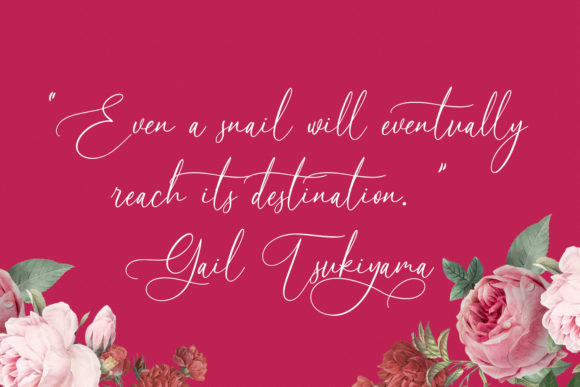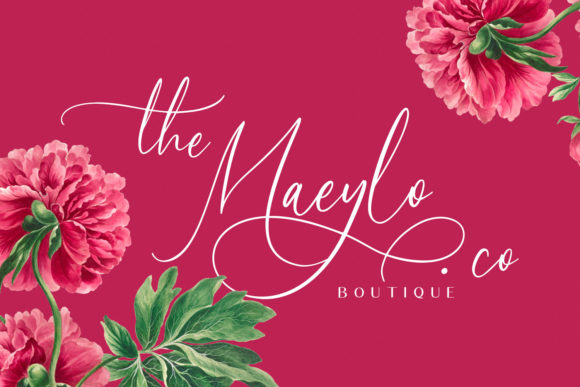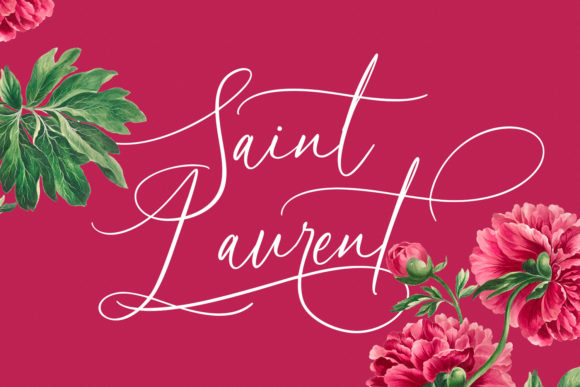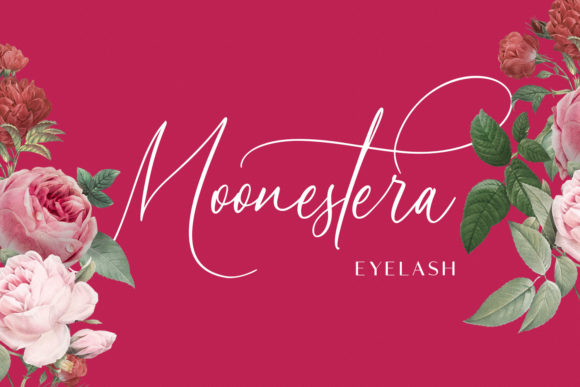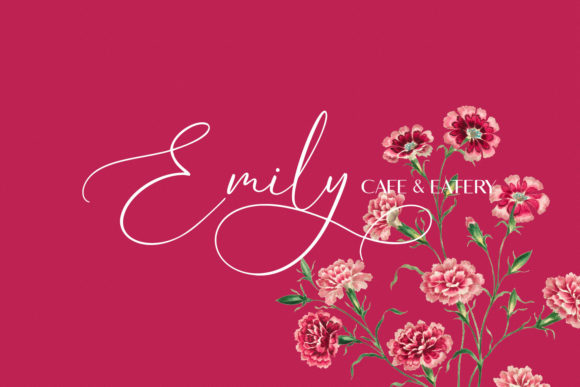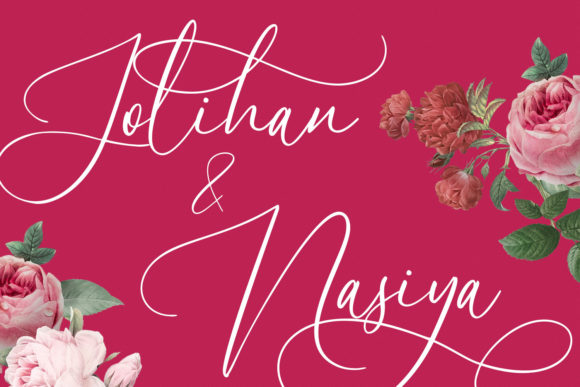
Introduction to Holystails Font
Have you ever been stuck on a creative project, staring at a blank canvas, searching for the perfect design element to bring it all together? For designers, finding that elusive spark can be a challenge. But what if I told you that there’s a font that can add a touch of magic to your next design project? Enter the beautiful and elegant Holystails Font, a stunning script font that’s perfect for adding a delicate, yet stylish touch to your work.
With its high-quality design and transparent background, the Holystails Font is a valuable resource for designers looking to elevate their creative projects. Whether you’re working on a branding project, a wedding invitation, or a social media graphic, this font is sure to add a level of sophistication and charm that will leave a lasting impression.
Key Features of Holystails Font
- High-quality, free font suitable for creative projects and design resources.
- Unique, modern design with a transparent background, making it perfect for background-free designs and overlays.
- Easy to use and customize, with a wide range of font sizes and styles to choose from.
- Perfect for designers, artists, and creatives working on various design projects, from branding and marketing materials to digital art and graphic design.
Honest Review: Holystails Font
I recently stumbled upon the Holystails Font, and I must say, it’s been a game-changer for my creative projects. As a designer, I’m always on the lookout for high-quality fonts that can elevate my designs and make them stand out. And the Holystails Font certainly delivers.
What works well with this font is its versatility. It’s perfect for creating a range of designs, from modern and sleek to vintage and eclectic. The font is highly customizable, allowing you to adjust the size, color, and even add a transparent background to make it blend seamlessly with your design.
- ✨ Versatile font that can be used for a range of designs
- ✨ Highly customizable, allowing for easy adjustments
One limitation I’ve noticed is that the font can be a bit difficult to read at very small sizes. However, this is a minor issue that can be easily resolved by adjusting the font size or using a different font in conjunction with the Holystails Font.
Overall, I’m thoroughly impressed with the Holystails Font. It’s a high-quality design resource that’s perfect for any creative project. Whether you’re designing a logo, brochure, or website, this font is sure to deliver. And the best part? It’s available for free download, making it an excellent addition to any designer’s toolkit.
The Holystails Font is a high-quality design resource ideal for creative projects. It features a transparent background, making it perfect for use on various backgrounds.
To get the most out of the Holystails Font, use it in conjunction with other high-quality design resources. Experiment with different font sizes and styles to create a unique look.
The Holystails Font is ideal for creative projects such as: